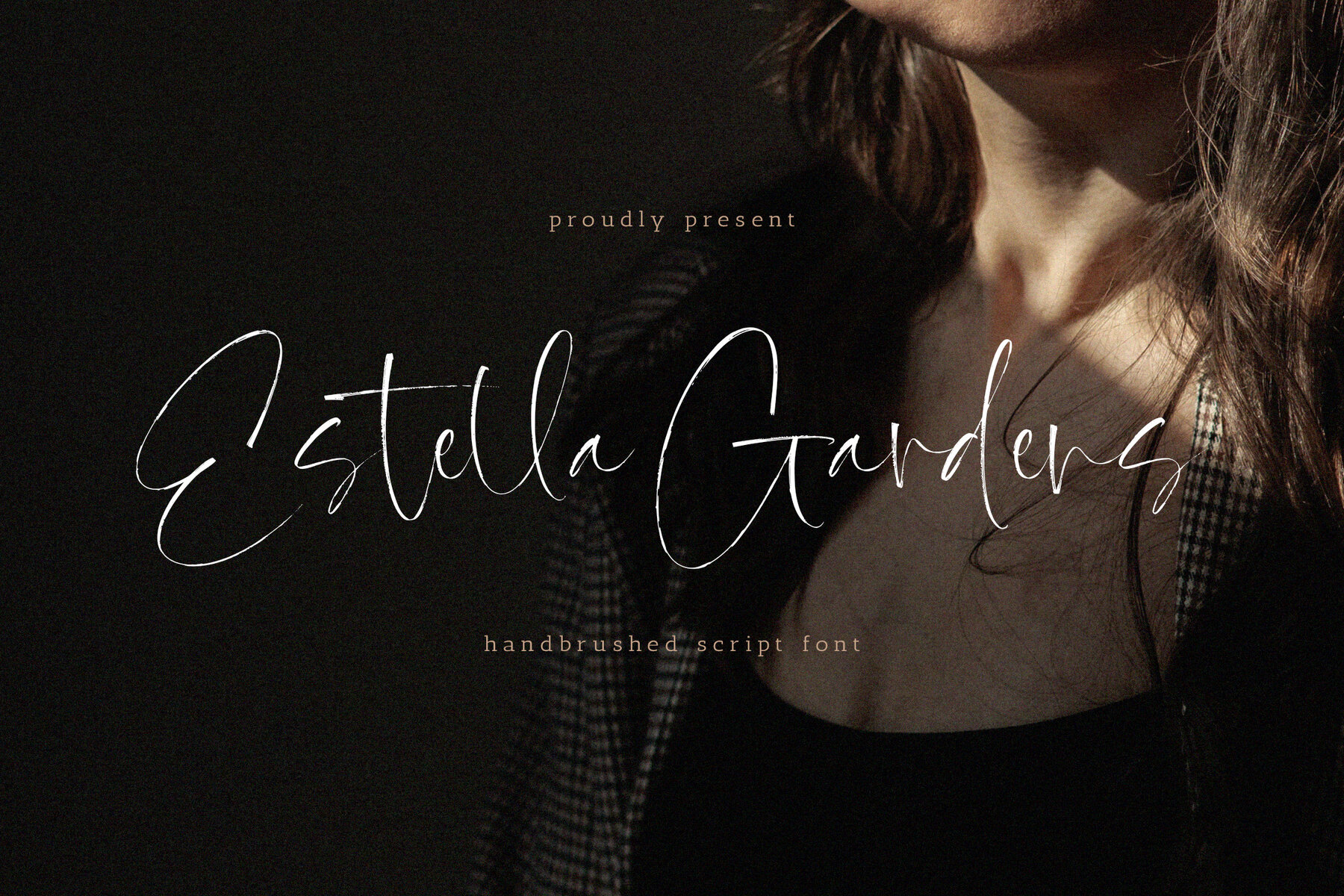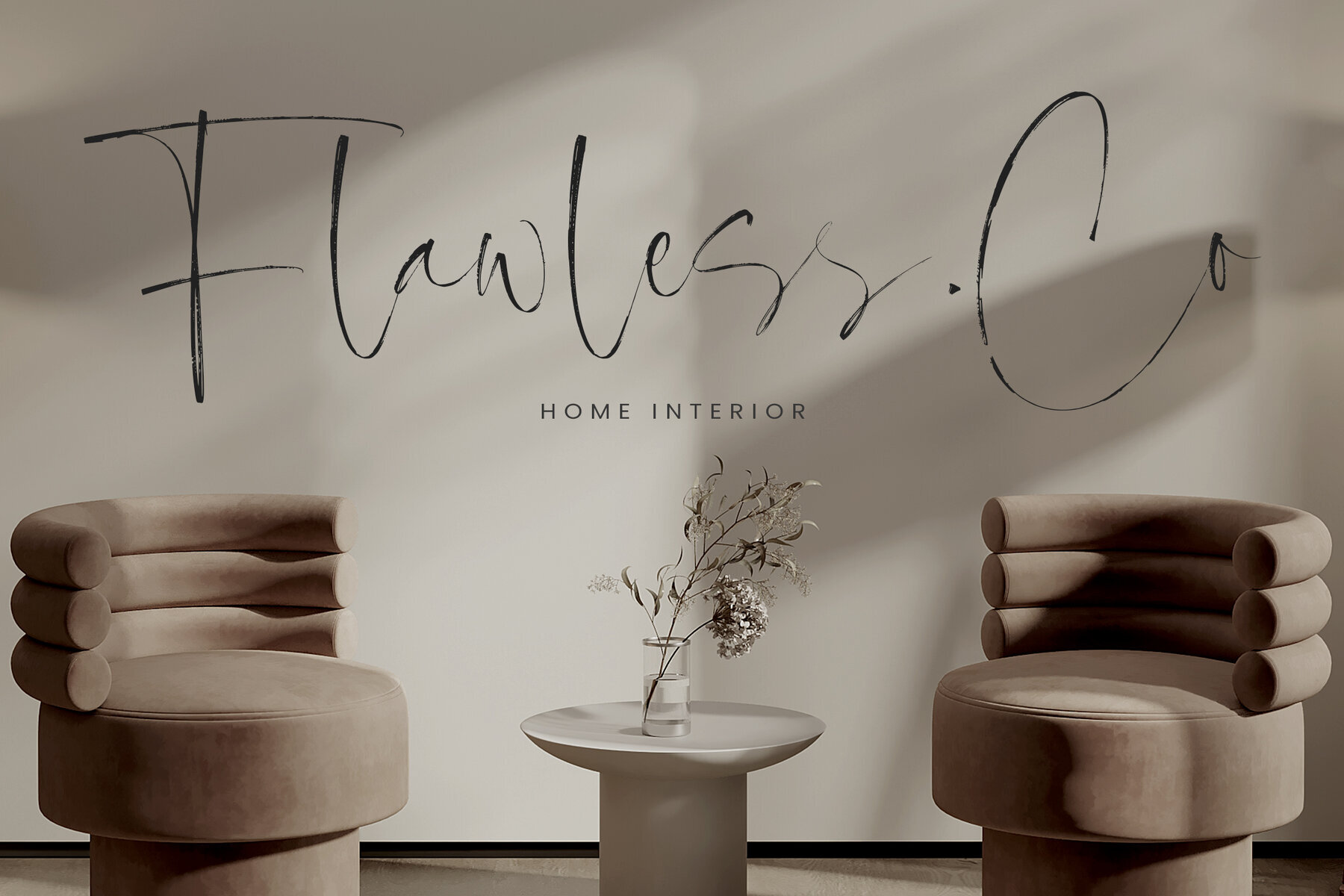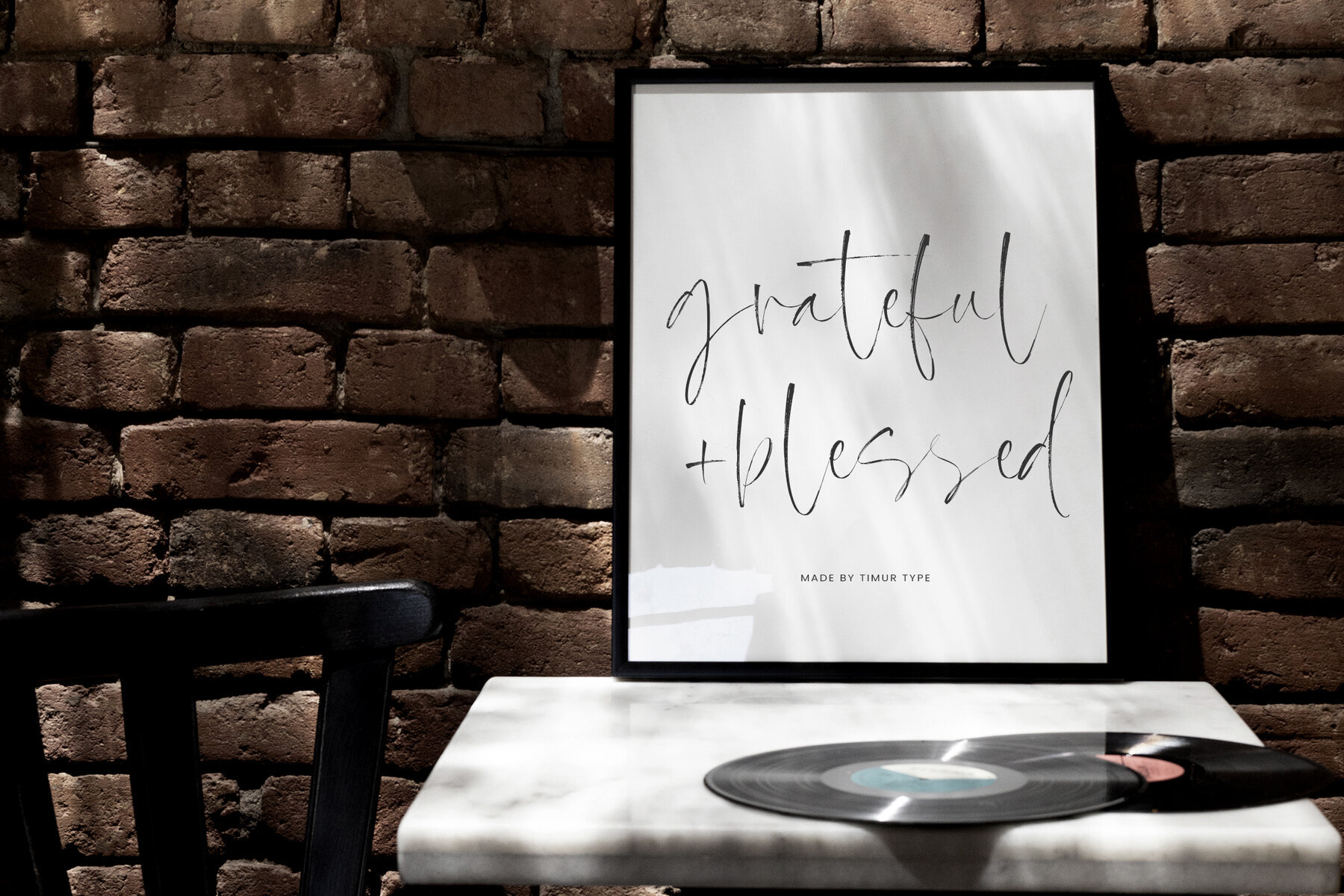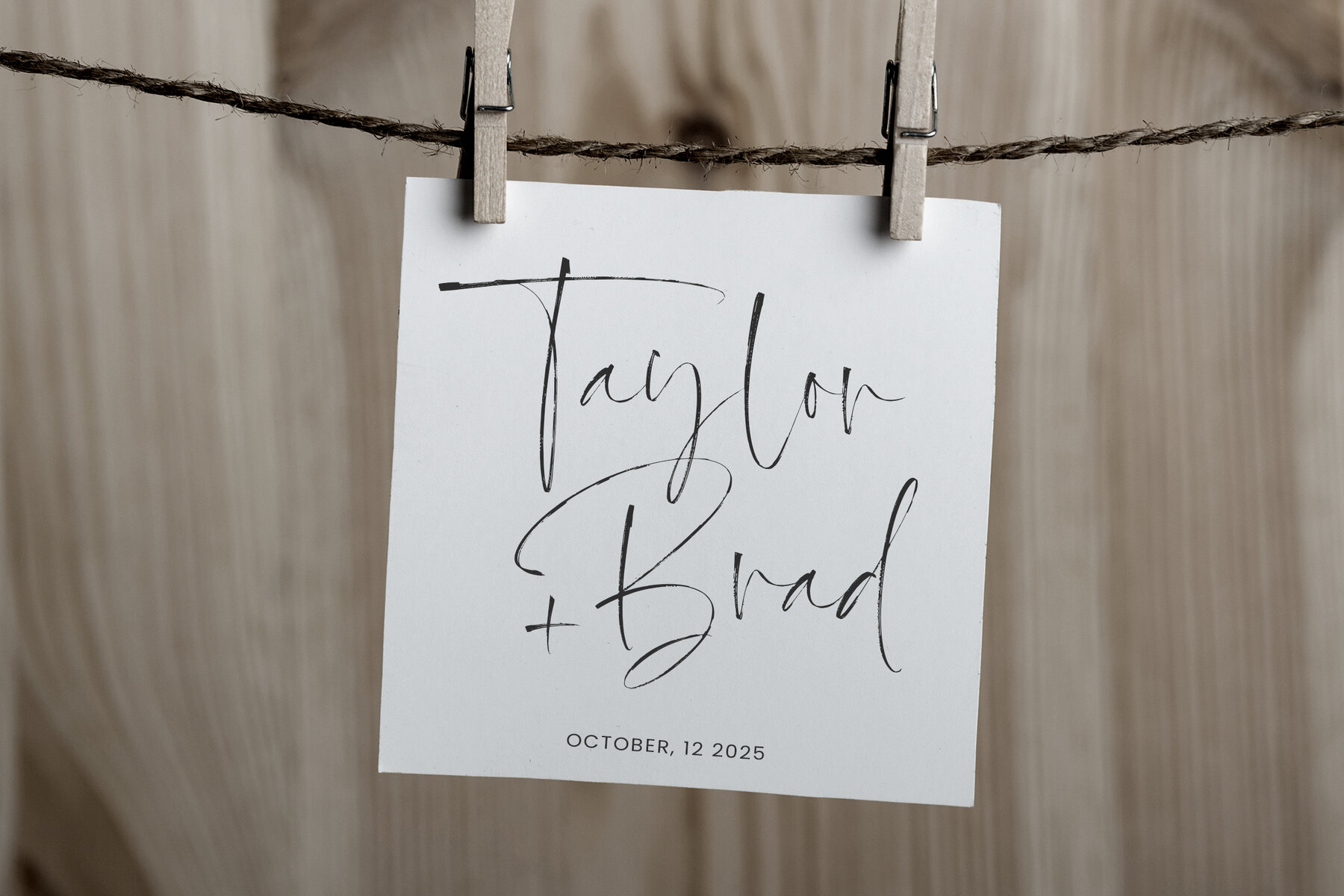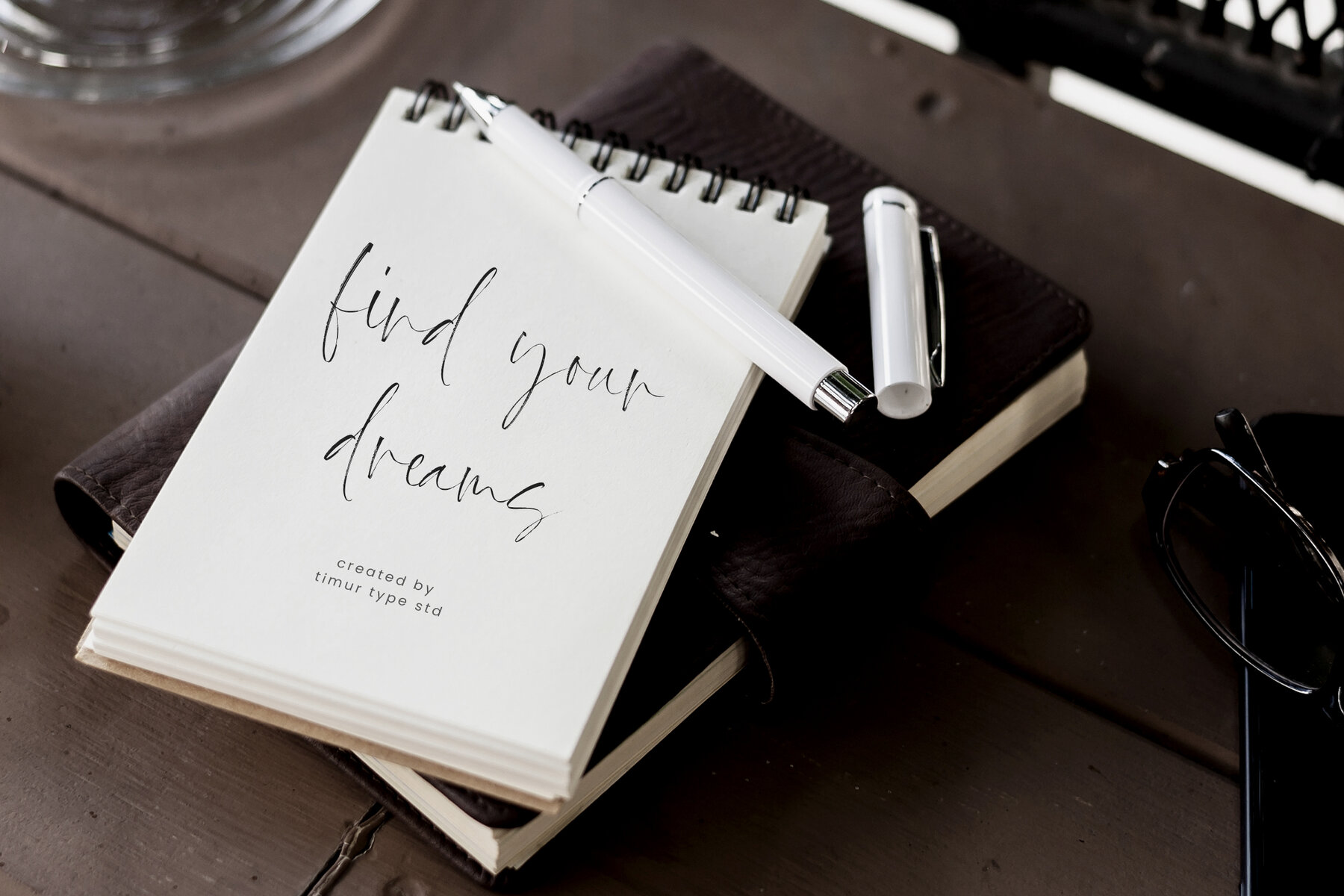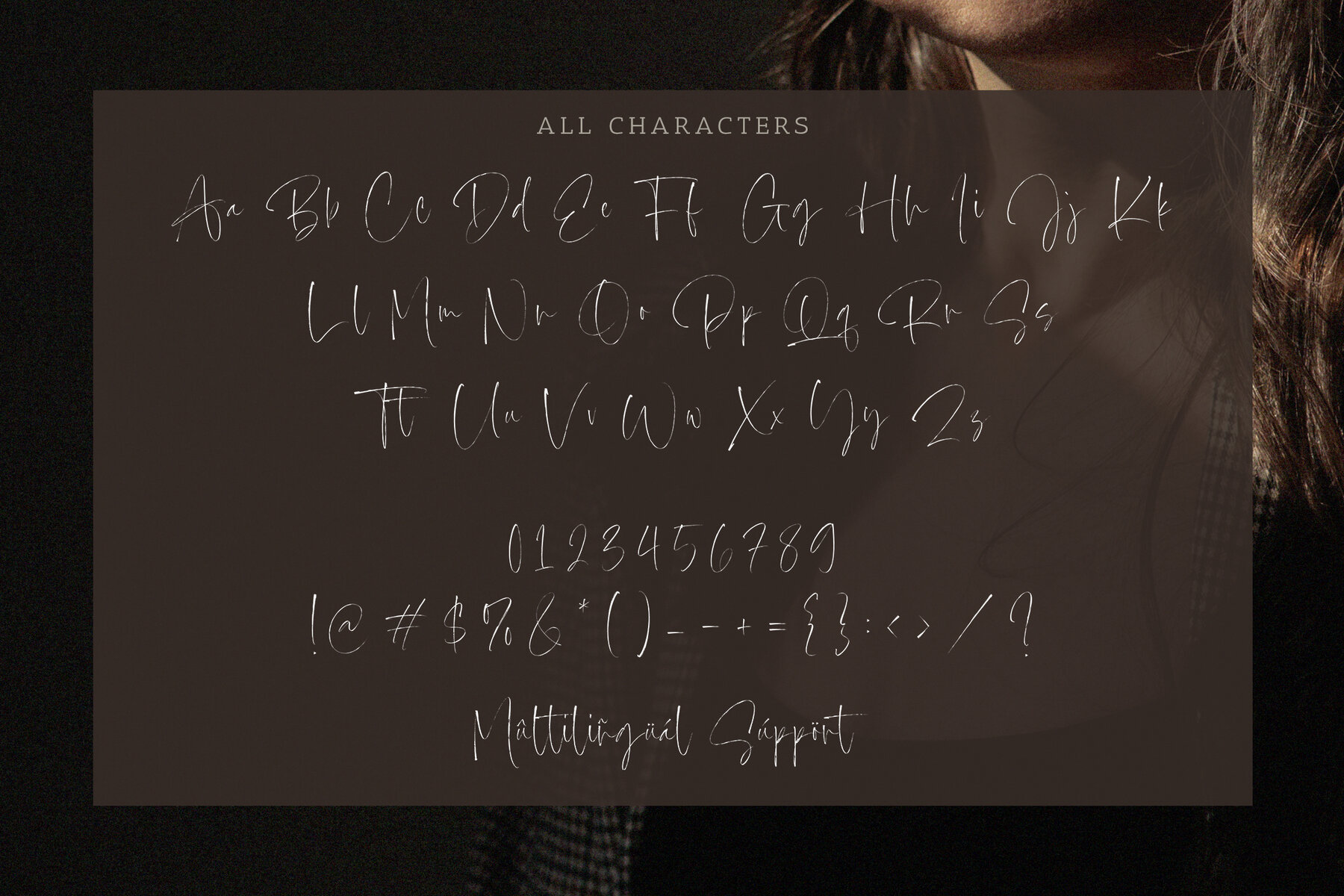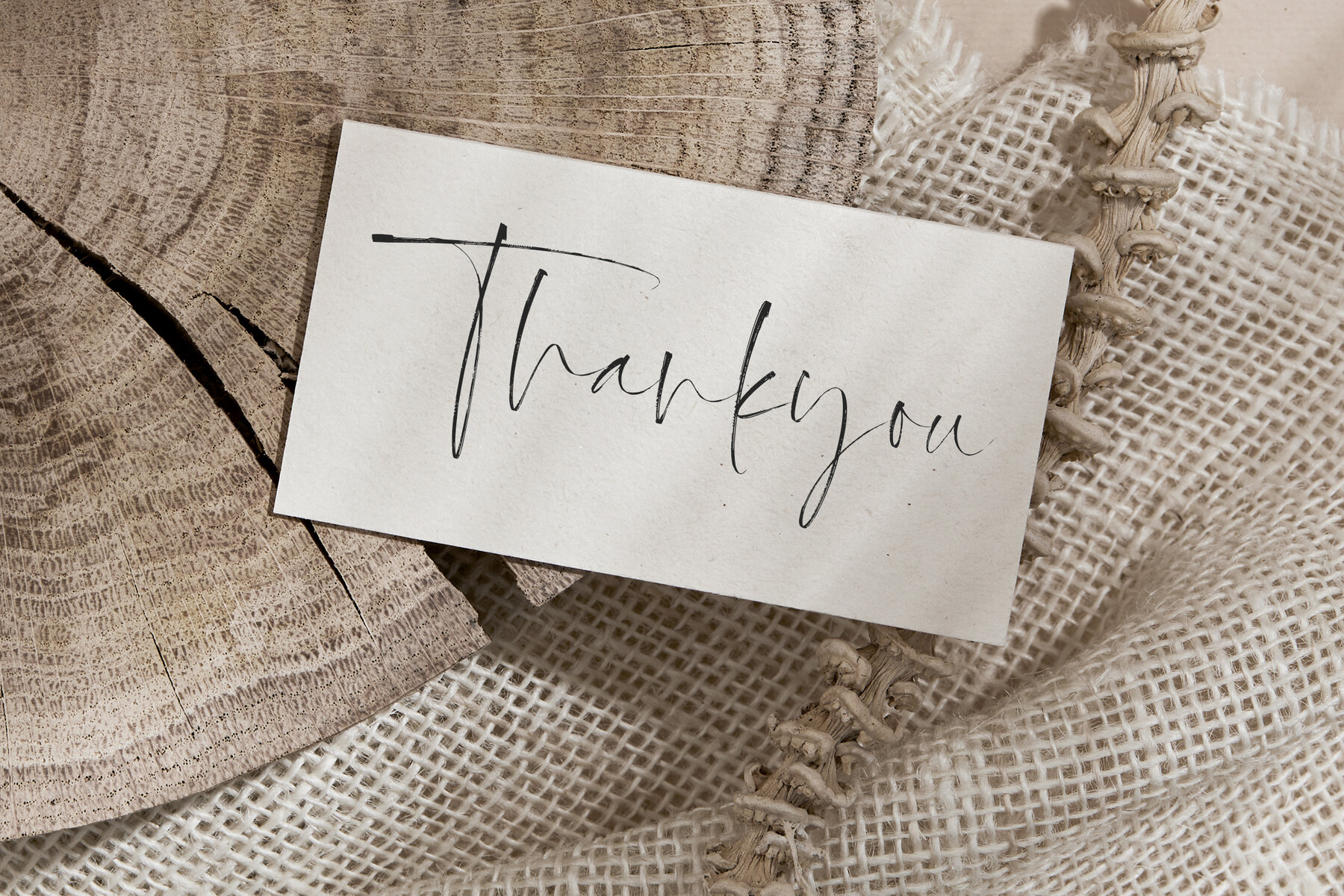
Estella Gardens Font
Estella Gardens
Estella Gardens is a sophisticated handbrushed script font that embodies timeless elegance and artisanal craftsmanship. Each stroke is meticulously crafted, imparting a sense of individuality and refined beauty to your design. The organic lines and graceful curves seamlessly blend modern sophistication with classic script elements, adding a unique twist to any project.
This font turns your words into visual poetry, capturing the essence of your message with bespoke charm. Perfect for a variety of applications, Estella Gardens enhances the aesthetic appeal of invitations, branding, and creative projects, offering a touch of handcrafted artistry that stands out.